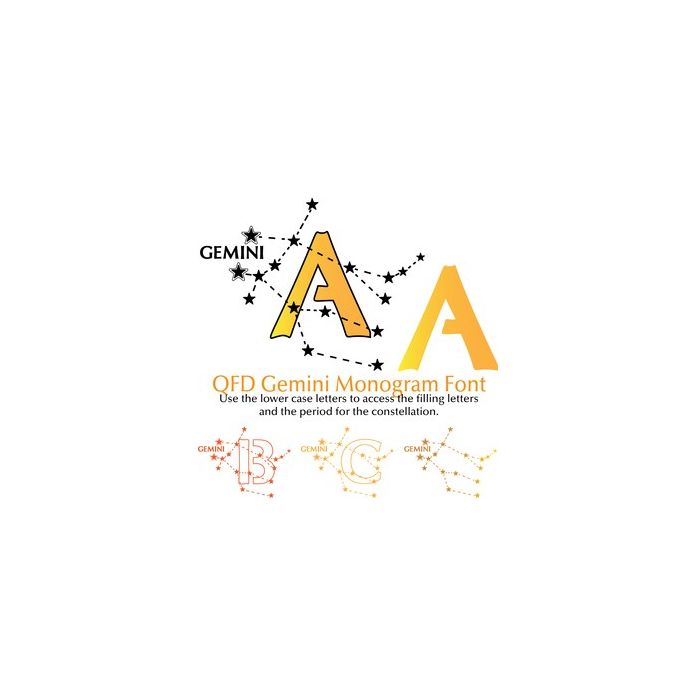
QFD Gemini Zodiac Monogram Font
Use the lower case to access the filler alphabet and the period to access the blank zodiac sign. You can use these monograms on gift tags, cards, pillows, invitations, wall art, t-shirts, mugs and anything else you can think of. Follow the Silhouette instructions for installing fonts and have fun!